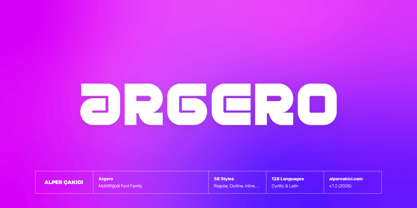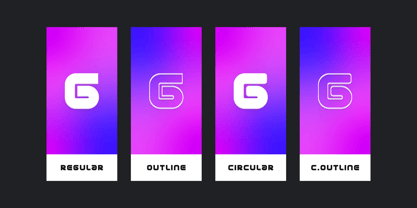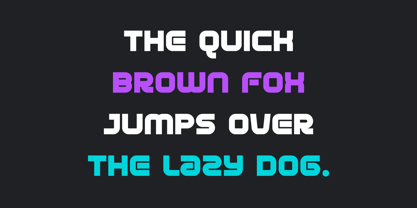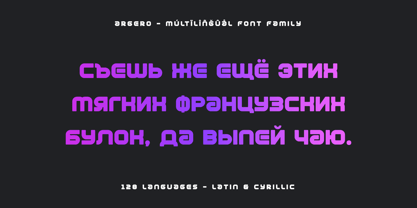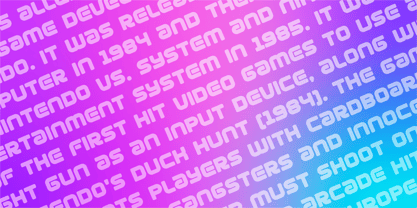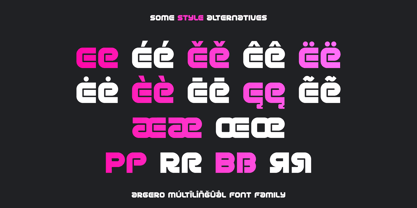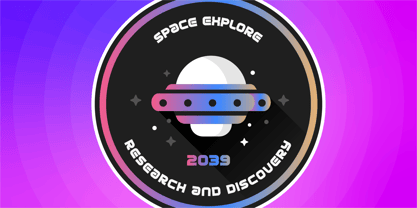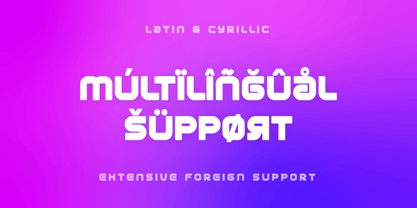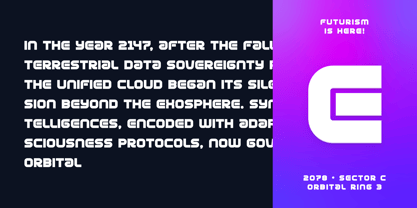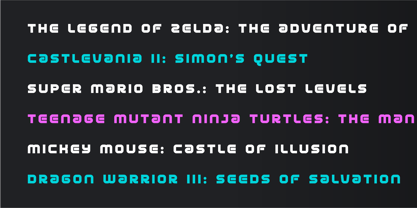
Argero
by AlperCakici
The Argero Font Family was designed by Alper Çakıcı and published by AlperCakici. Argero contains 58 styles and family package options. More about this family
Argero is a geometric, maze-inspired display typeface designed to create striking visual paths within letterforms. Its structure blends circular construction, angular turns, and rhythmic line flow, resulting in a distinctive typographic system that feels both futuristic and architectural. The design explores the relationship between geometry and movement, with each character built from controlled paths that echo labyrinth patterns, creating a unique visual texture while remaining readable in display settings. This makes Argero ideal for experimental branding, posters, editorial headlines, album covers, packaging, and digital artwork. As a large superfamily featuring 58 stylistic instances, Argero offers a wide spectrum of expressive possibilities. From clean geometric styles to textured and hand-inspired variants, the family includes Regular, Angular, Circular, Rounded, Brush, Pencil, Outline, Inline, Rimmed, Noise, Eroded, and Rough variations, each with matching italics where applicable. These styles enable designers to transition from precise minimalism to expressive, tactile aesthetics while maintaining a consistent typographic voice. The typeface supports 128 languages, covering an extensive range of Latin-based languages used across Europe, Africa, and the Americas, making Argero suitable for international design projects and multilingual branding systems. Key Features: - 58 font styles - Geometric maze-inspired letterforms - Circular, rounded, angular, and textured variants - Brush, pencil, rough, noise, and eroded styles - Inline, outline, and rimmed display options - Extensive Latin language support (128 languages) Argero is perfect for designers seeking a bold, experimental display typeface that merges geometric precision with artistic complexity.